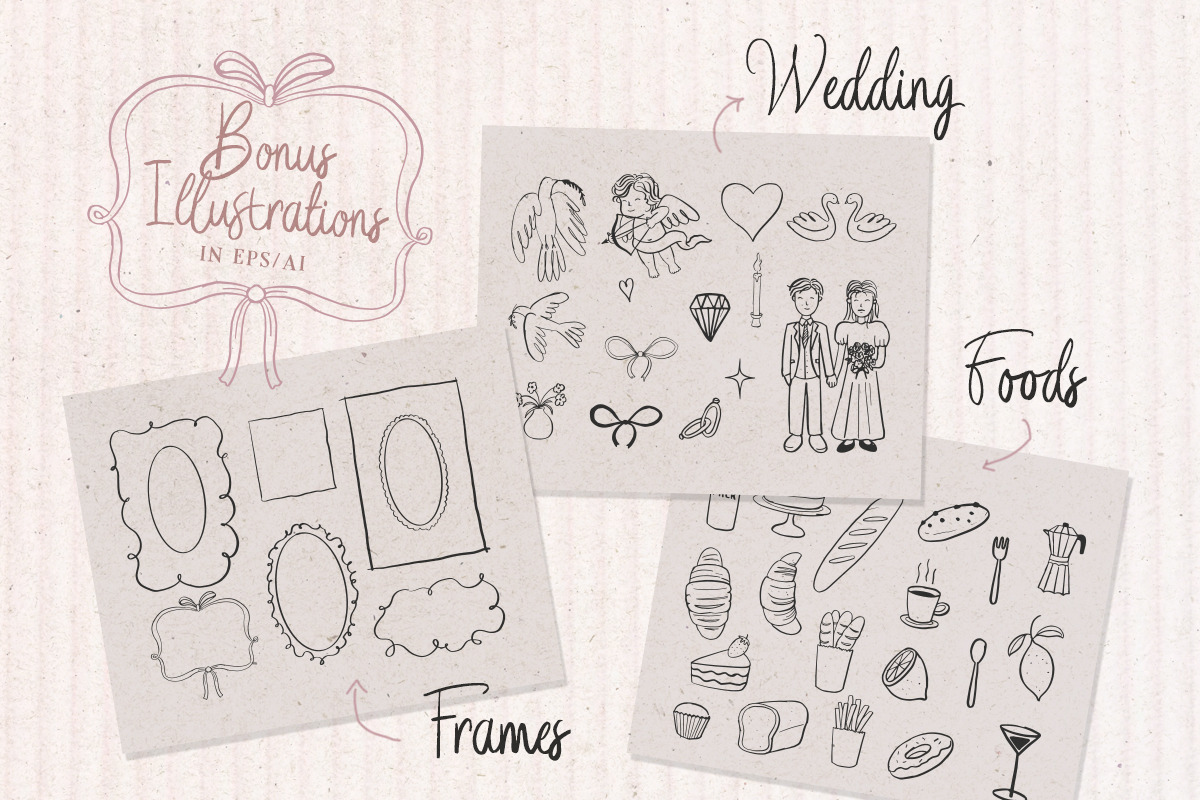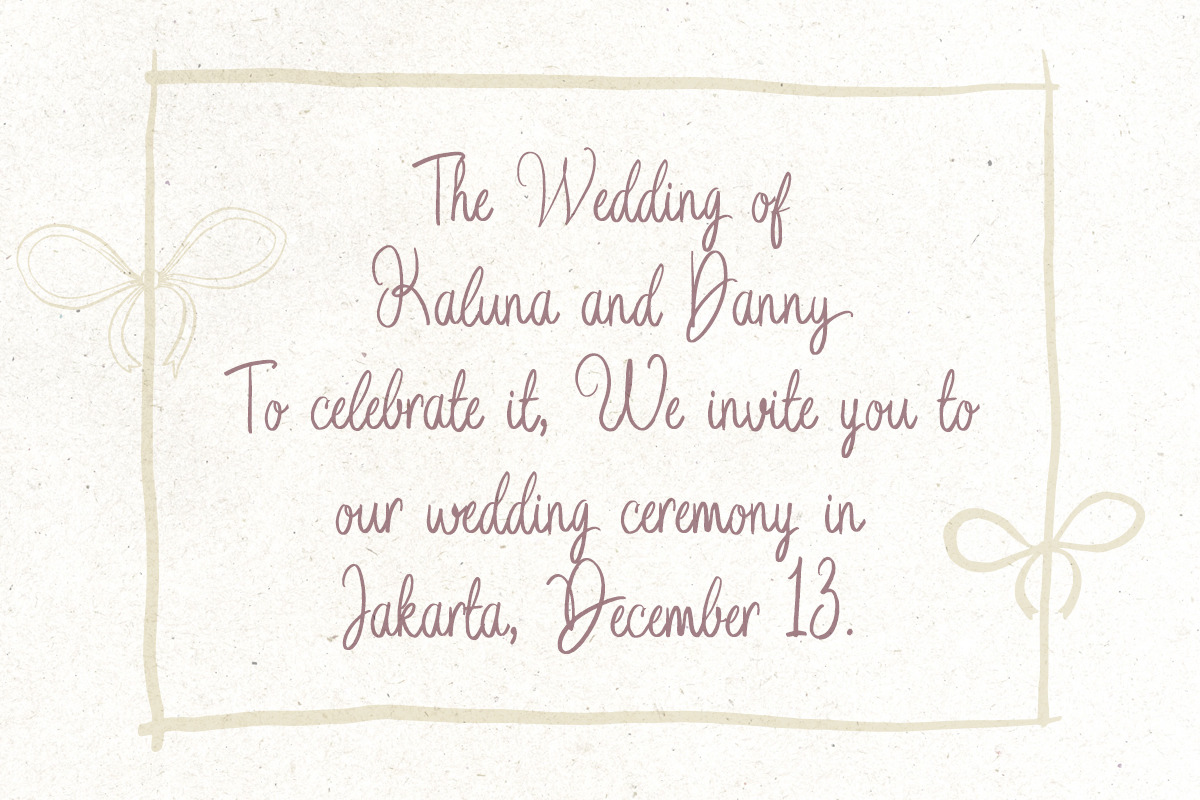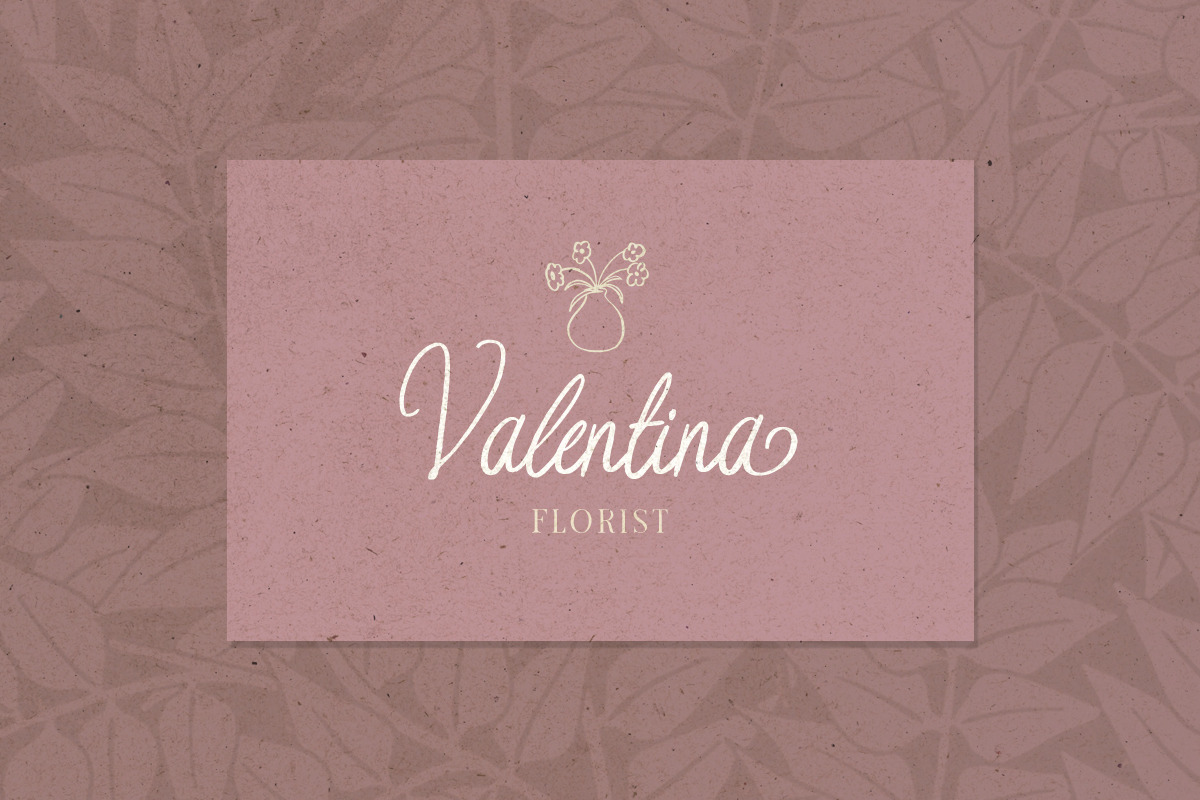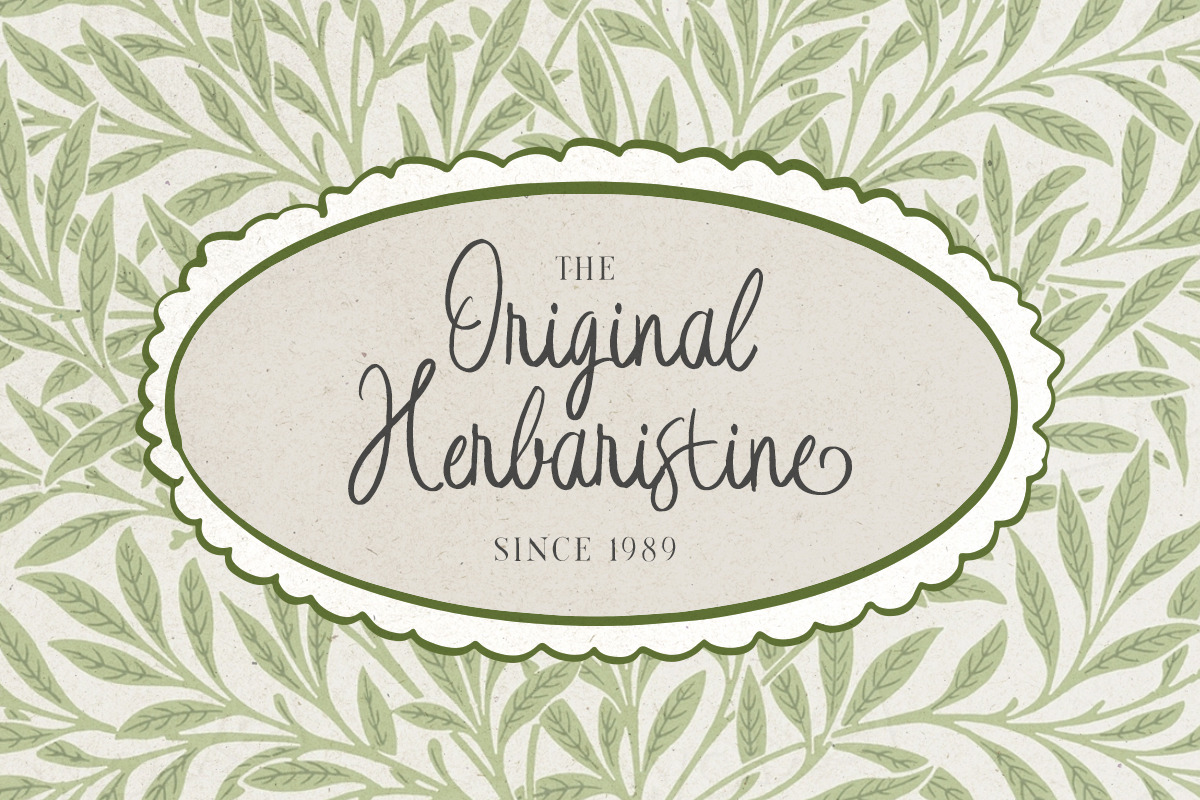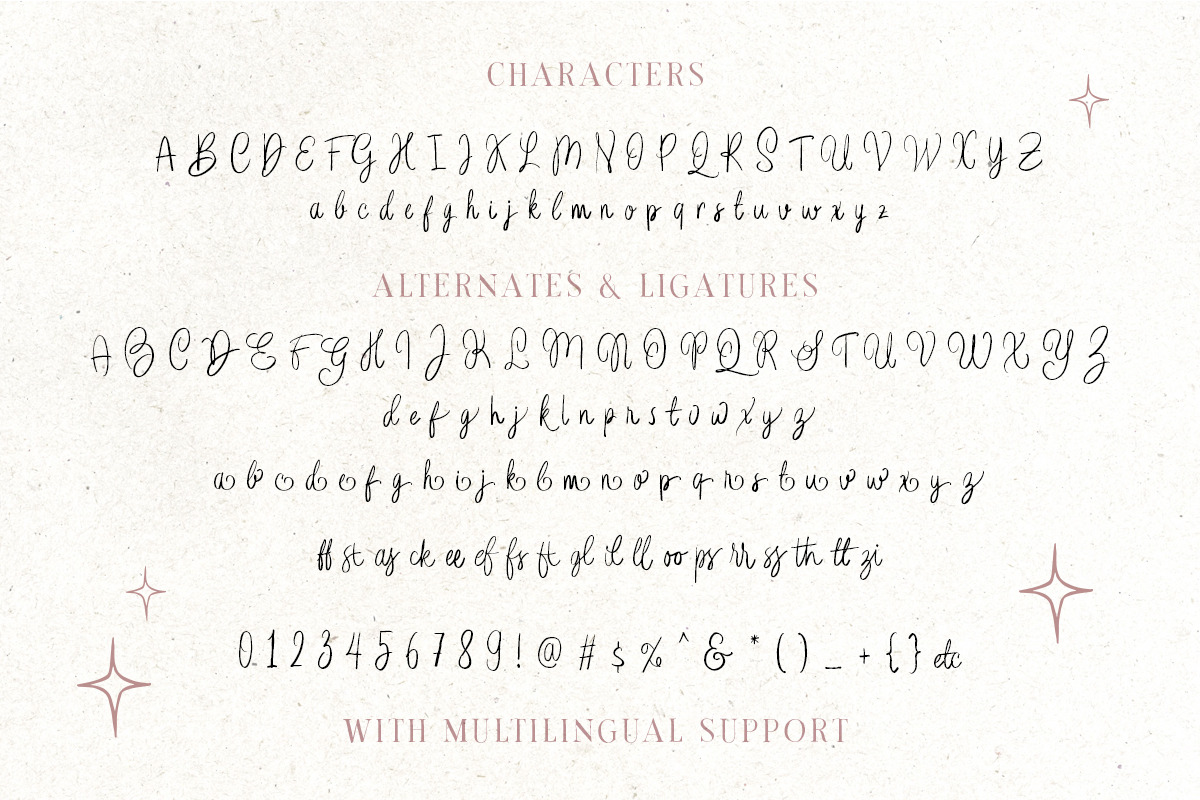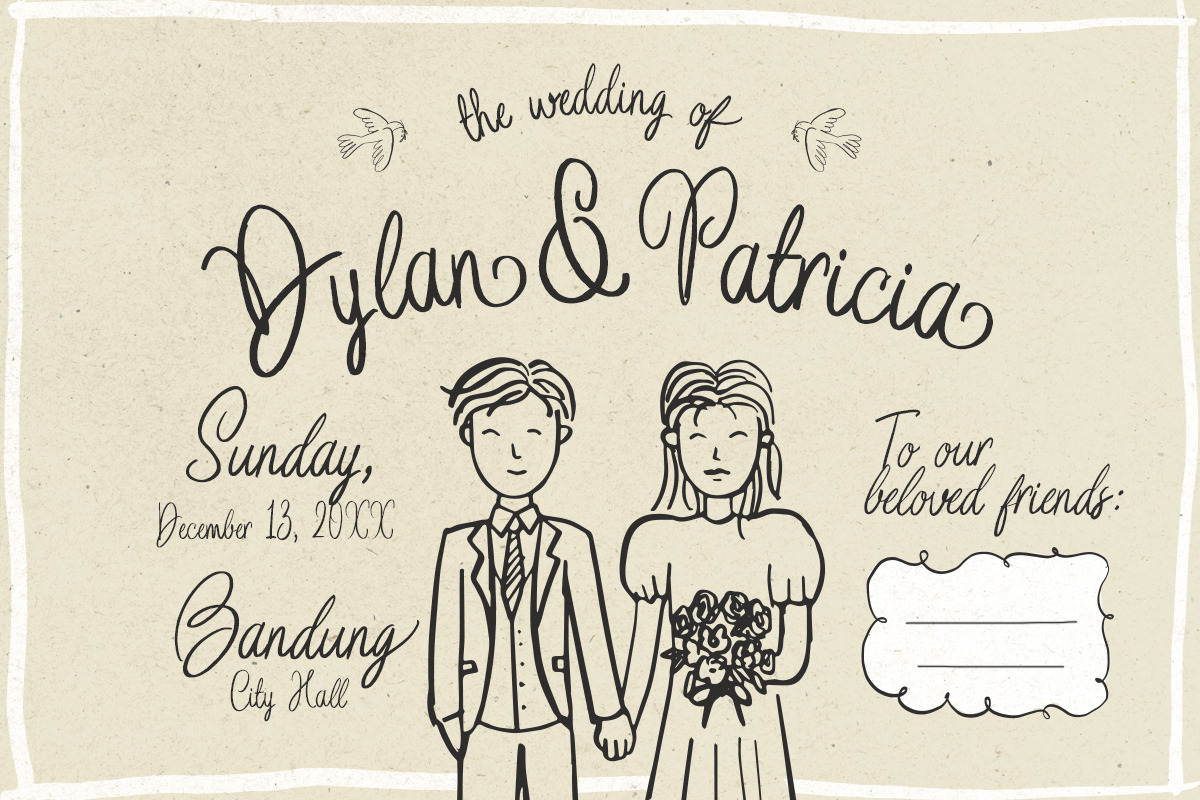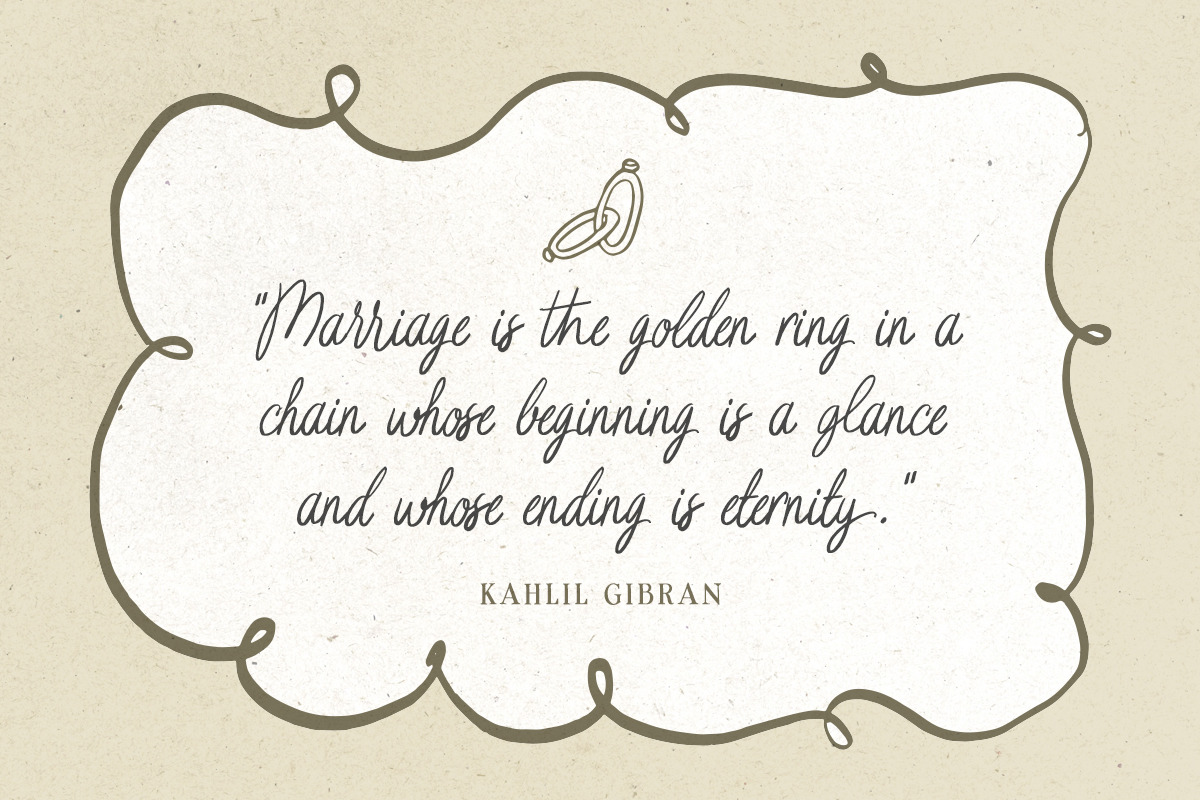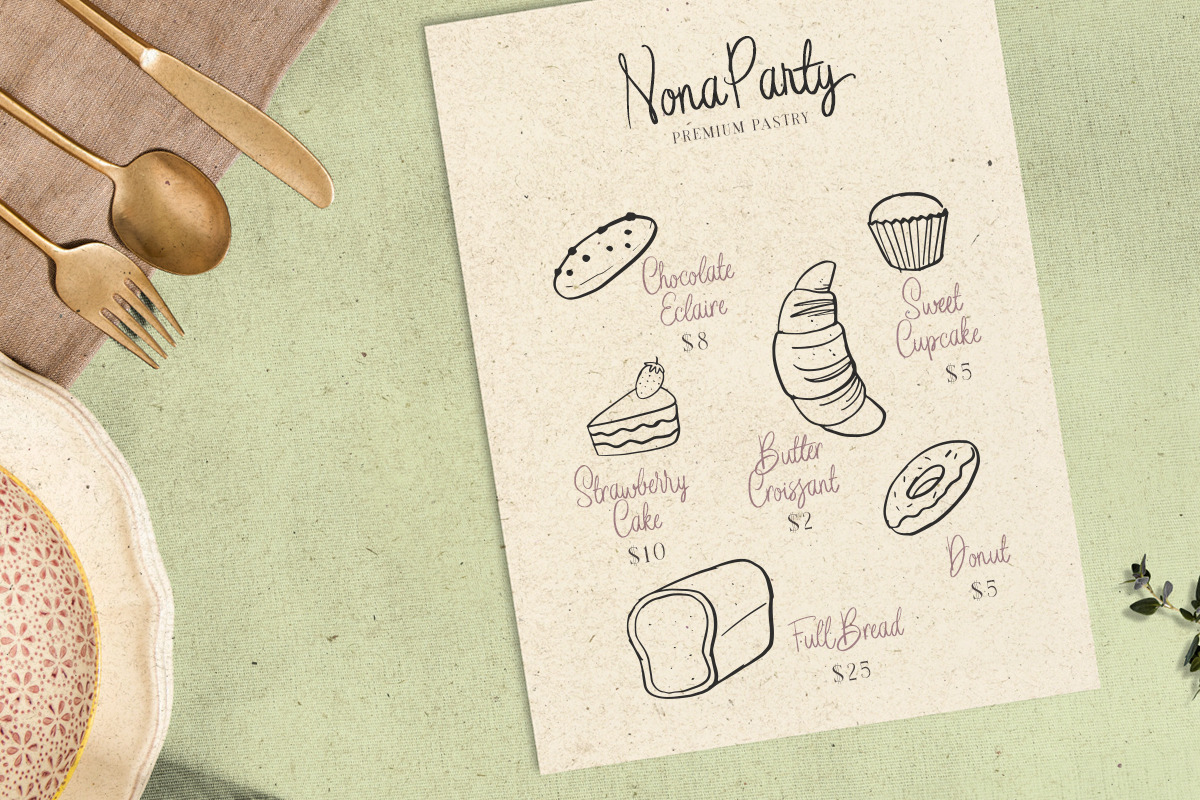
Wedding Letter Handwriting +Doodles
Wedding Letter is a beautifully crafted handwritten typeface with a touch of whimsy and elegance. It includes free hand-drawn illustrations of wedding-themed doodles, pastries, and frames, adding a gentle, romantic feel to designs. Perfect for invitations, boutique packaging, romance novels, bakery logos, and any creative project needing a soft, luxurious aesthetic.